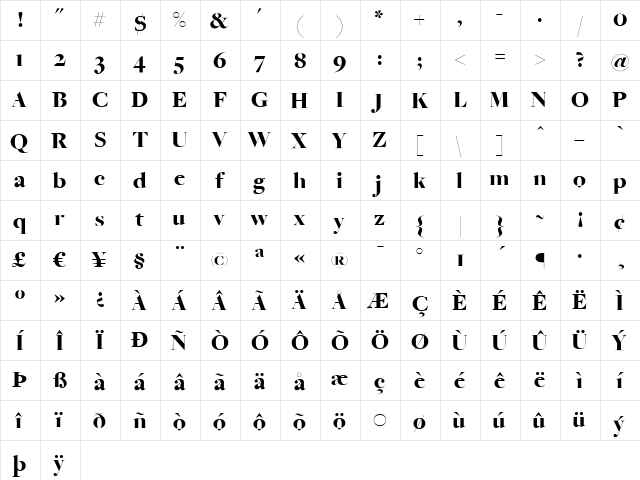
FreightBigBlack Regular
Regular · Joshua Darden & Phil's Fonts, Inc Joshua Darden ·
Foundry Joshua Darden & Phil's Fonts, Inc
FoundryJoshua Darden & Phil's Fonts, Inc
DesignerJoshua Darden
Design Context for FreightBigBlack Typeface
FreightBigBlack takes a measured approach to typography — its balanced proportions and neutral character make it a reliable workhorse for both digital and print work.